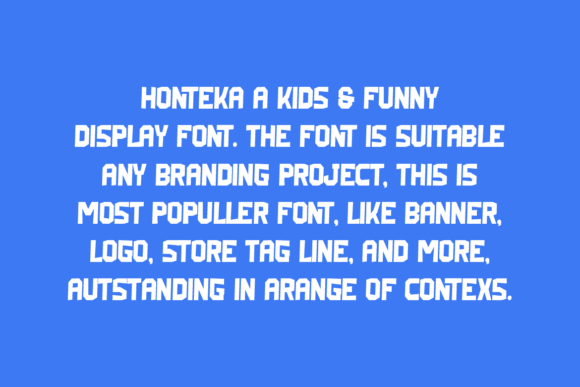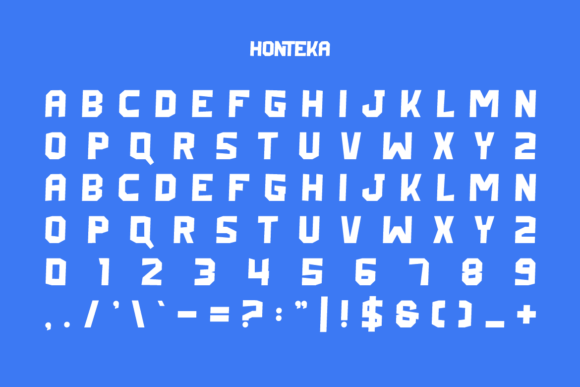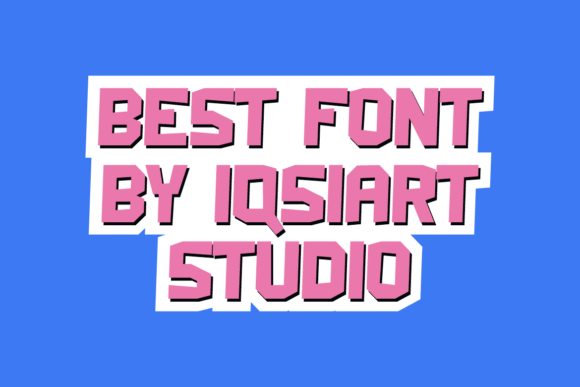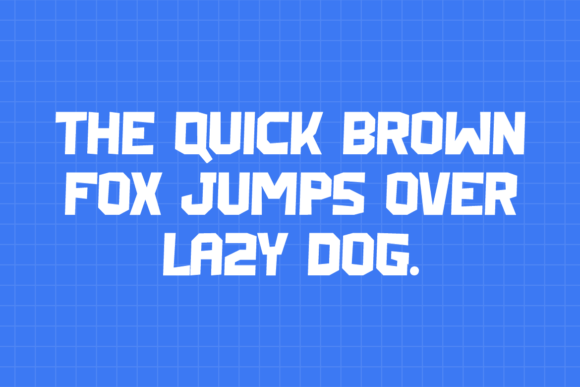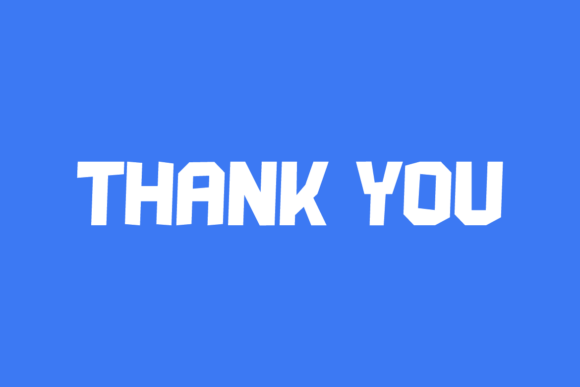
Introduction to Honteka Font
Introducing Hontekka, a bold and playful display font designed to captivate attention.
Perfect for kids’ projects, playful branding, posters, and packaging, this font combines quirky charm with geometric precision Its fun design makes it ideal for comic-style graphics, games, and any project that needs a burst of youthful energy.
Key Features of Honteka Font
Why Choose Honteka Font?